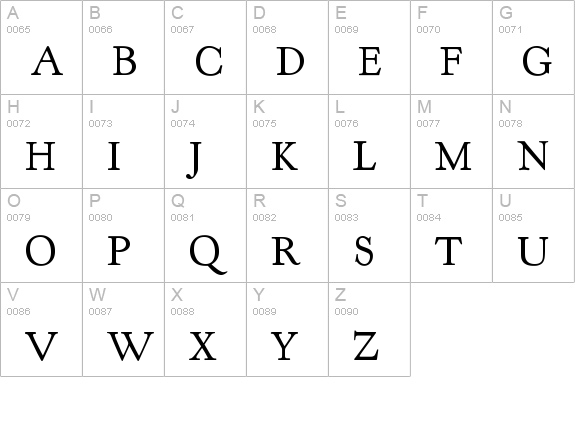
Kennerley Old Style Expert Regular Font Details
Kennerley Old Style Expert Regular is the standard, neutral variant in the Kennerley typeface family \xE2\x80\x94 well suited to general body text, paragraphs, and standard typographic work.
Kennerley Old Style Expert Regular is a timeless font that exudes elegance and sophistication. With its classic yet modern design, it is the perfect choice for any project that requires a touch of refinement. Its clean lines and well-balanced proportions make it highly readable, whether used for body text or headlines. This font is meticulously crafted to capture the essence of traditional typography while being versatile enough to adapt to contemporary design needs. It is the embodiment of craftsmanship and attention to detail, resulting in a typeface that stands the test of time. The Kennerley Old Style Expert Regular font is available for free download at FontsMarket.com. This means that you can access this exceptional font without any cost, making it a valuable asset for designers, writers, and creatives alike. Its availability on FontsMarket.com ensures that you can easily acquire this font and incorporate it into your projects seamlessly. Whether you are working on a branding project, editorial design, or any other creative endeavor, Kennerley Old Style Expert Regular will elevate your work to new heights. Its versatility and timeless appeal make it a must-have for any designer's toolkit. Download it for free at FontsMarket.com and experience the beauty and sophistication of this remarkable font.